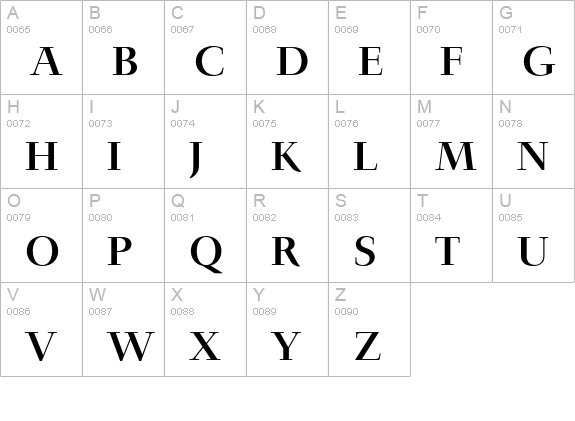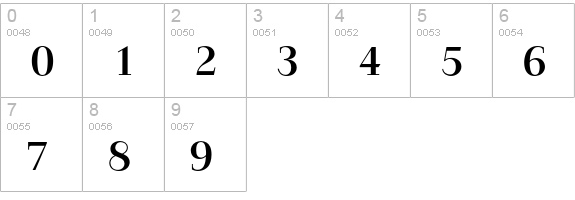
Jaeger-Antiqua Regular Font Details
Jaeger-Antiqua Regular is the standard, neutral variant in the Jaeger typeface family \xE2\x80\x94 well suited to general body text, paragraphs, and standard typographic work.
Jaeger-Antiqua Regular is a timeless and elegant font that exudes a sense of sophistication and refinement. With its classic serifs and graceful curves, this typeface is perfect for adding a touch of old-world charm to any design project. The Jaeger-Antiqua Regular font showcases a harmonious balance between tradition and modernity, making it versatile and suitable for a wide range of applications. Whether you're designing a logo, creating a stunning invitation, or crafting an eye-catching poster, this font will elevate your design with its timeless appeal. One of the standout features of Jaeger-Antiqua Regular is that it is freely available to download at FontsMarket.com. This means that you can access this exquisite font without any cost, allowing you to enhance your creative projects without breaking the bank. FontsMarket.com offers a vast collection of fonts, and Jaeger-Antiqua Regular is just one of the many gems you can discover on their platform. The clarity and legibility of Jaeger-Antiqua Regular make it perfect for body text, ensuring that your written content is easy to read and visually pleasing. The well-defined serifs and elegant strokes create a sense of professionalism, making it a popular choice among designers, publishers, and typographers alike. Whether you're aiming for a vintage aesthetic or a classic look, Jaeger-Antiqua Regular is the perfect font to bring your vision to life. Its versatility, elegance, and free availability make it a must-have in any designer's toolkit. Download Jaeger-Antiqua Regular today from FontsMarket.com and unlock the potential to create stunning, timeless designs that captivate and inspire.